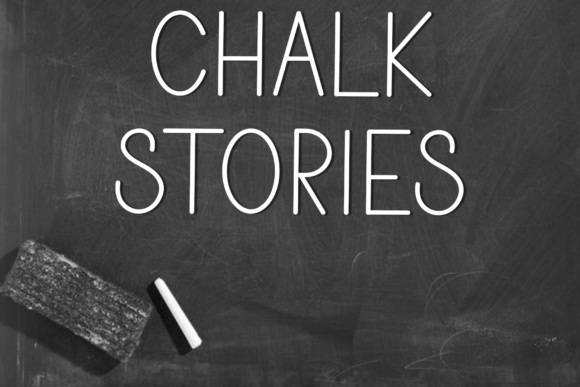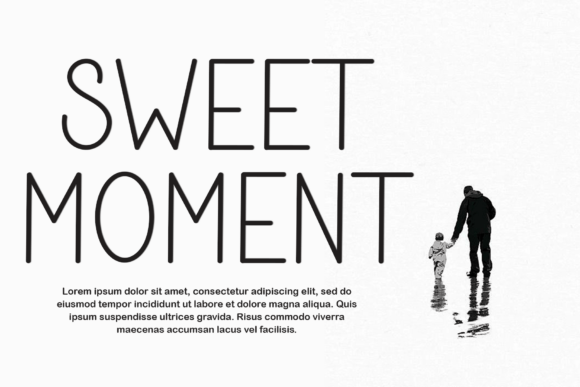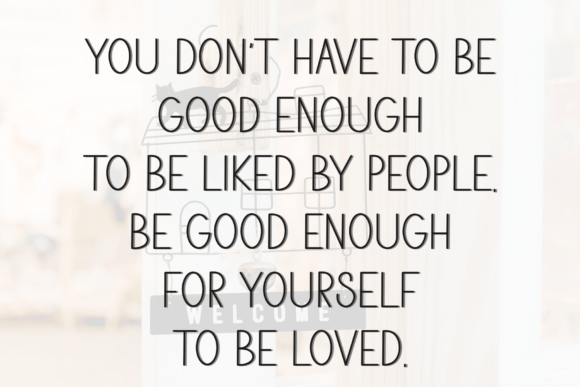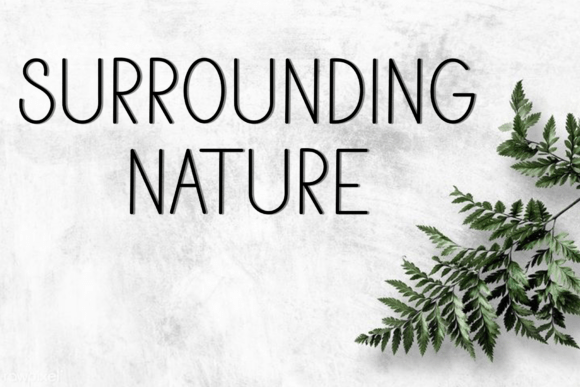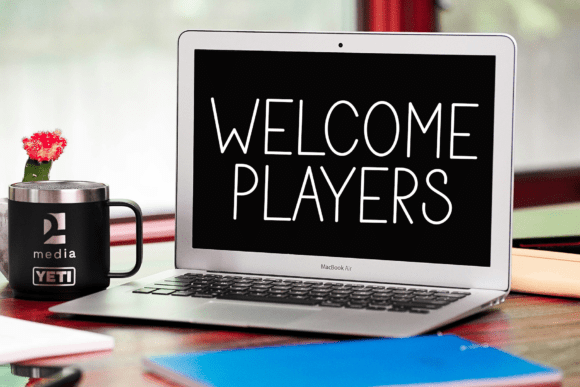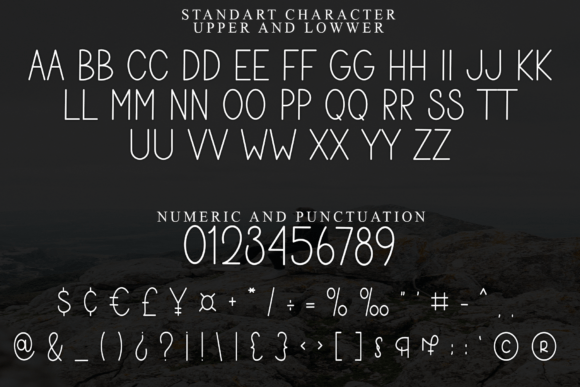
Introducing Checklist Font: Elevate Your Designs with a Unique Touch
In the world of design, fonts play a crucial role in conveying messages, evoking emotions, and capturing attention. If you’re a designer, crafter, or creative professional looking for a font that stands out from the crowd, look no further than Checklist Font. This beautiful and eye-catching font is designed with a soft, unique touch that sets it apart from more traditional fonts.
The Distinctive Characteristics of Checklist Font
Checklist Font boasts distinctive strokes that give it a special character, making it meaningful and versatile for future use. Its unique design ensures that your designs will grab attention and leave a lasting impression on your audience. Whether you’re working on a design project, craft, or other creative work, Checklist Font is the perfect choice.
A World of Creative Possibilities
One of the standout features of Checklist Font is its versatility. With various characters at your disposal, you can experiment with different styles and designs to bring your creative vision to life. From elegant and sophisticated to playful and whimsical, Checklist Font adapts seamlessly to your design needs.
As a designer or crafter, you know how important it is to have a font that can elevate your work and make it more appealing to your audience. Checklist Font is ideal for a wide range of creative projects, including:
- Logo design and branding
- Digital and print marketing materials
Why Choose Checklist Font?
So why choose Checklist Font over other fonts on the market? Here are just a few reasons:
- Unique and eye-catching design: Checklist Font is designed to stand out from the crowd, making it perfect for designers and crafters who want to create something truly special.
- Versatile and adaptable: With various characters and a natural style, Checklist Font can be used across a wide range of creative projects and applications.